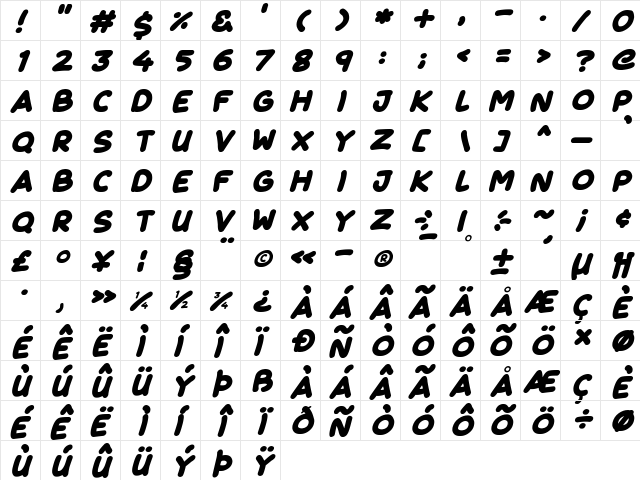
To Japan Italic
Design Context for To Japan Typeface
To Japan is a composed and adaptable typeface that performs quietly and consistently across a wide range of design contexts. Its italic angle brings a sense of urgency and motion to the letterforms.
Pro Tip: Use To Japan for emphasis, pull quotes, and subheadings where its slanted energy can add rhythm to the layout.